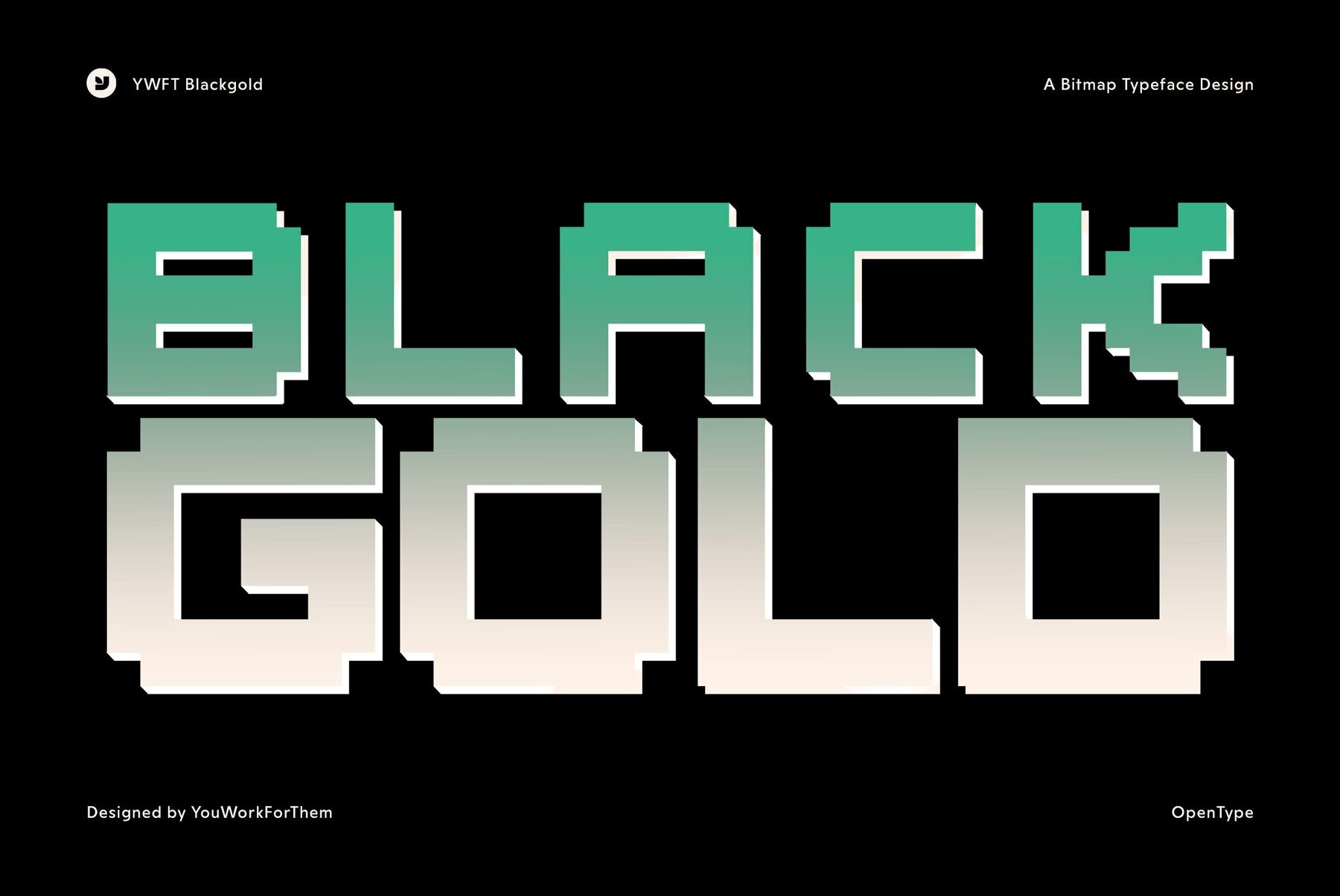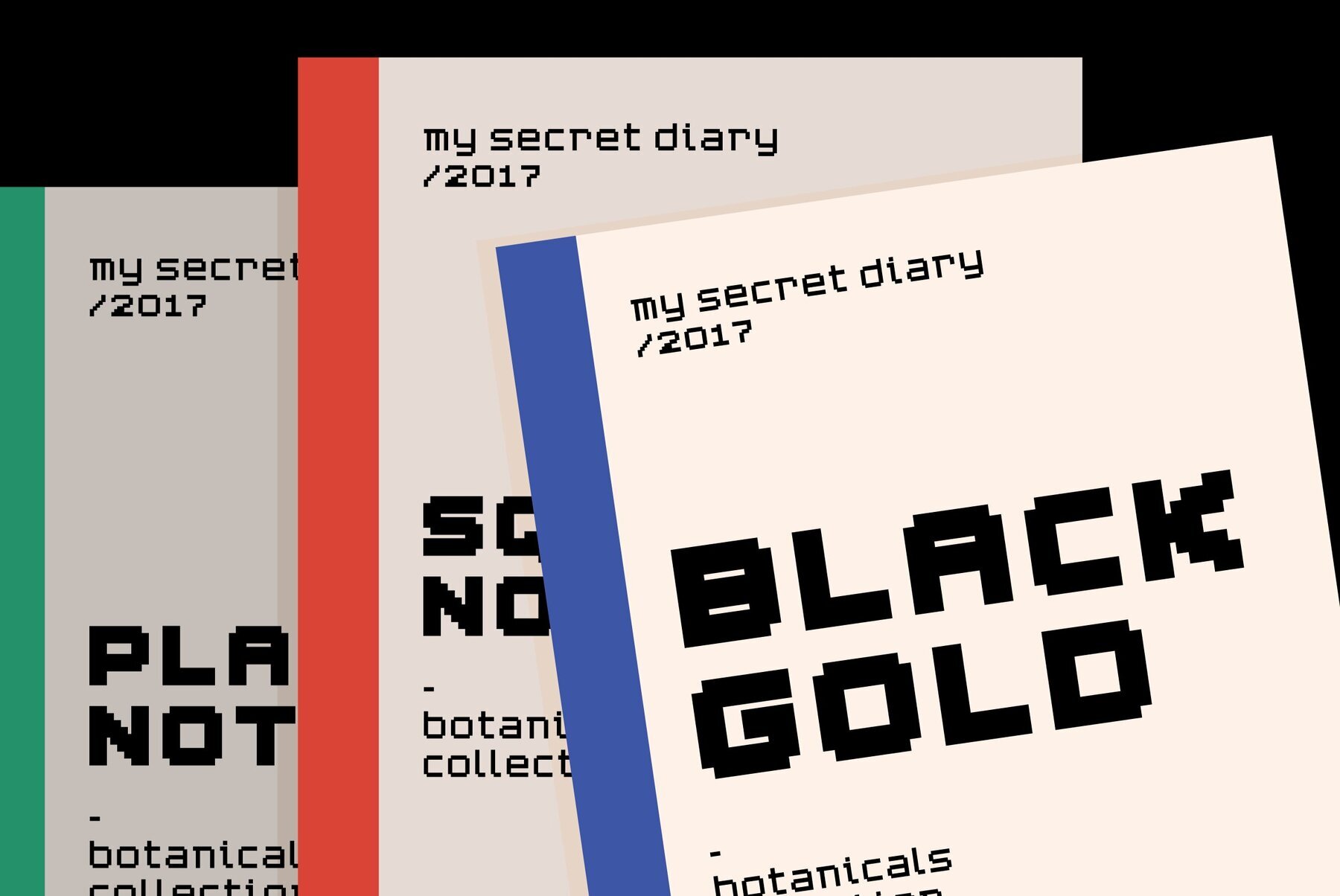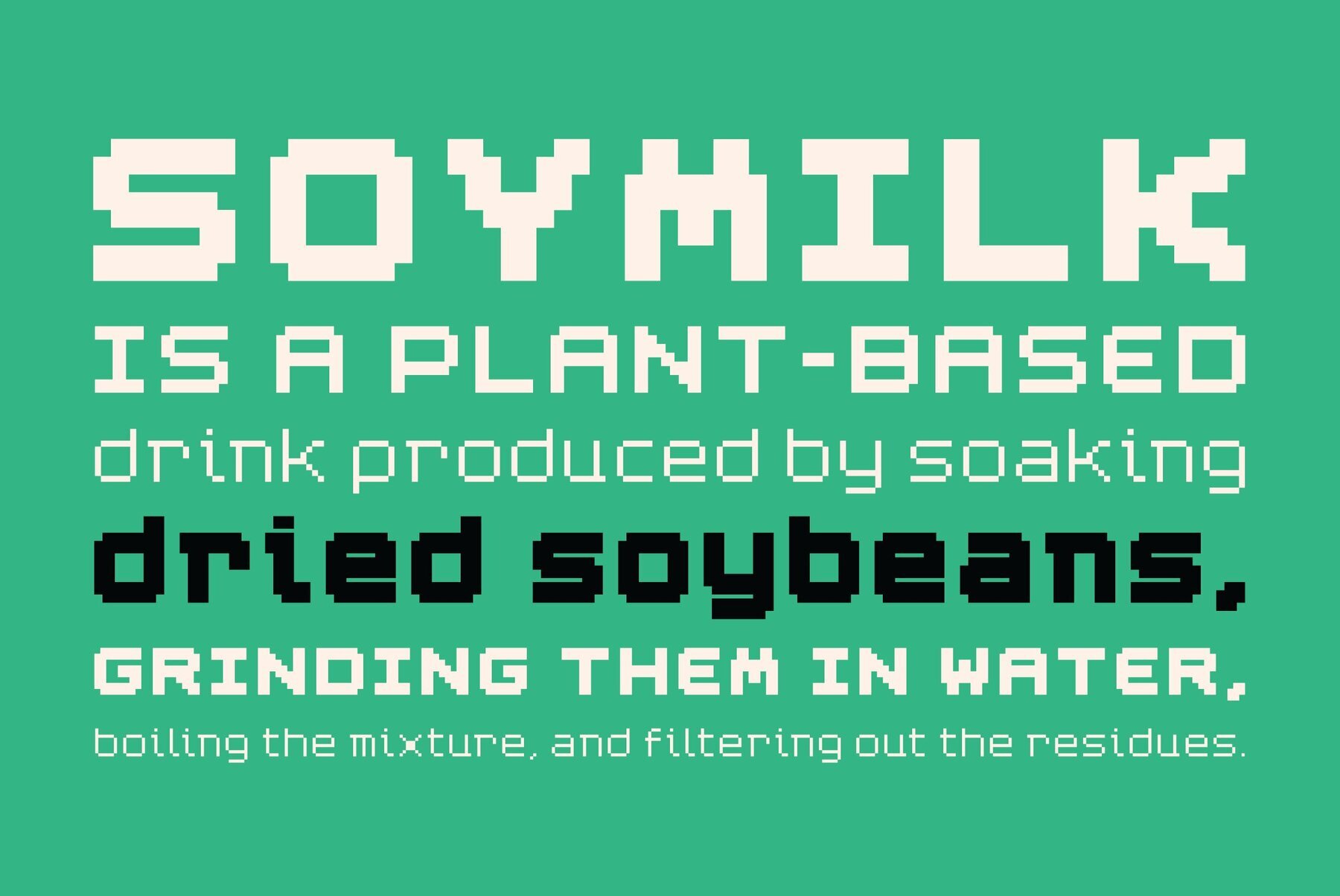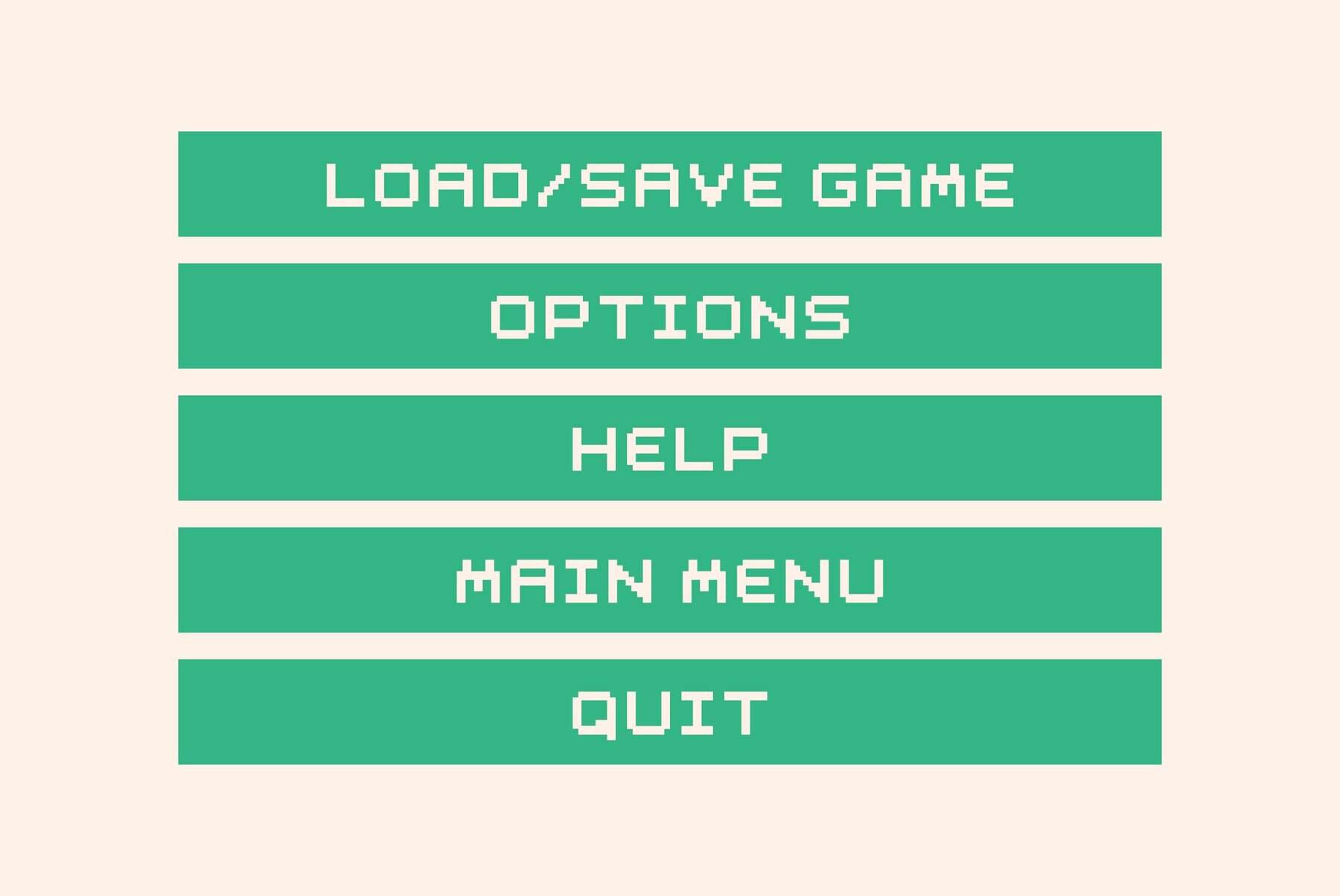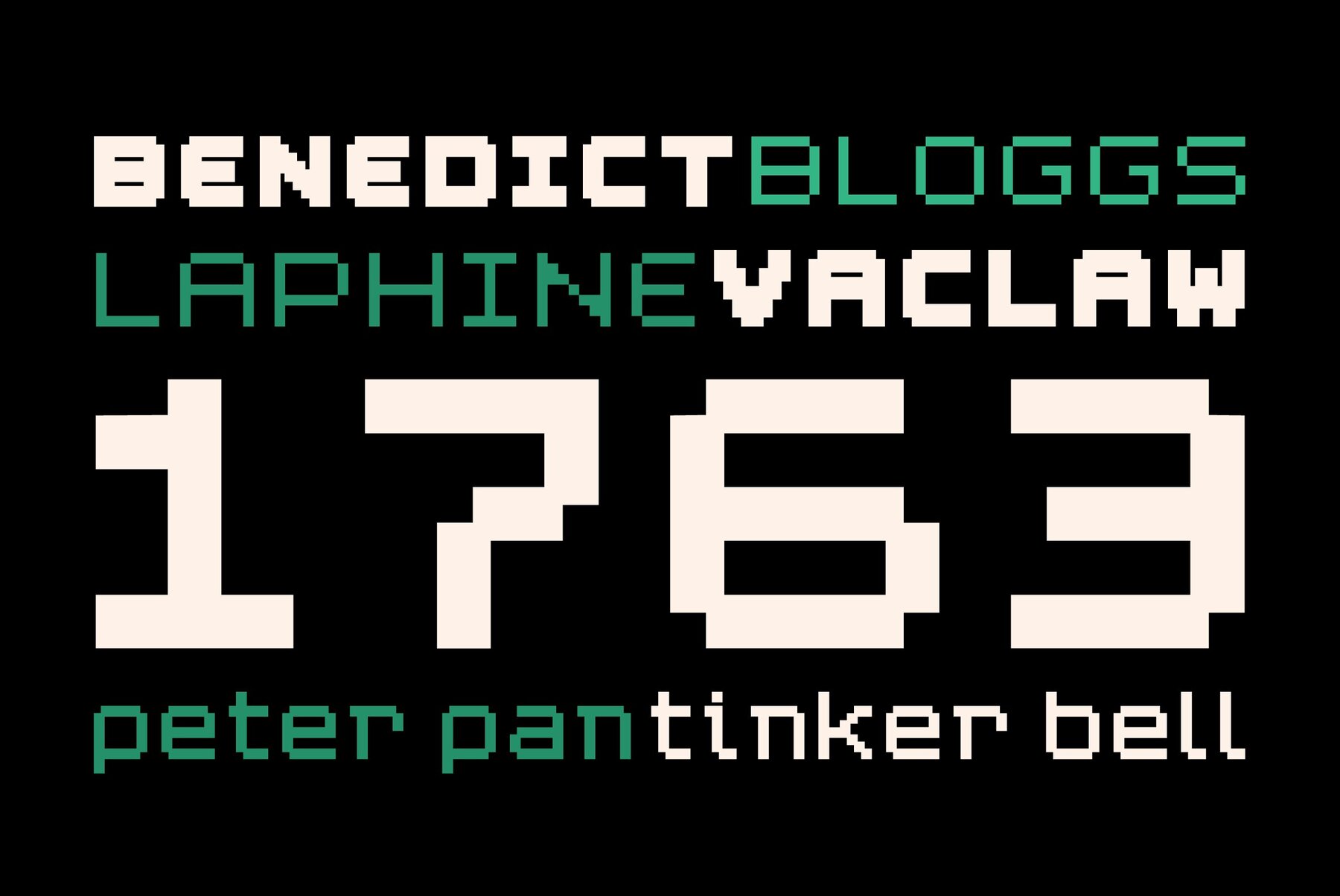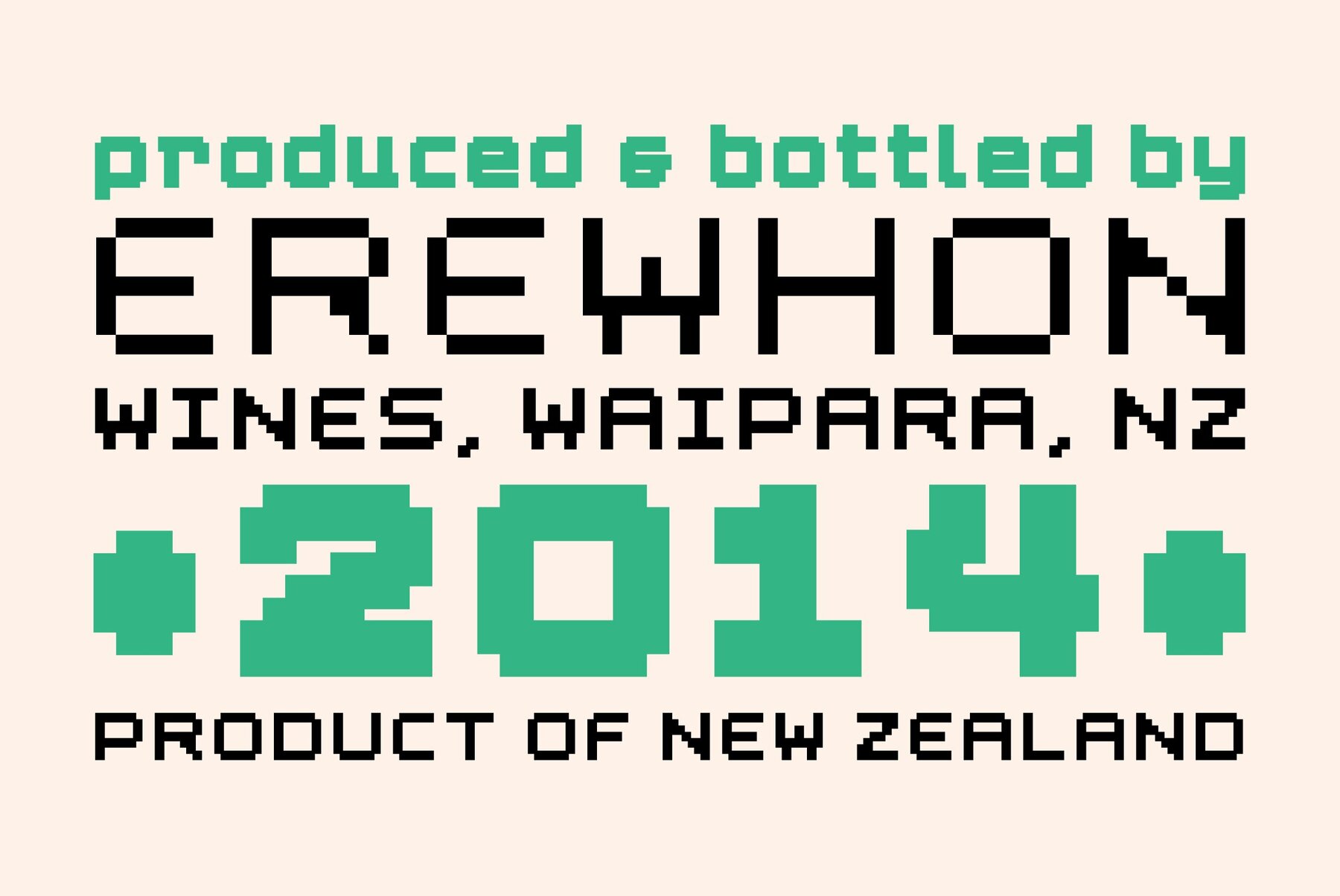
YWFT Blackgold Font
YWFT Blackgold: Pixelated Perfection
YWFT Blackgold brings a bold, playful touch to your digital designs. Initially crafted as an extension to YWFT Caliper, this robust, chunky font is ideal for video game enthusiasts and retro aesthetics. Its pixel-inspired design not only excels in digital projects but also stands out in both body and headline text, making it versatile and impactful.
Key Features
• Thick, chunky pixel style
• Perfect for digital and retro-themed designs
• Suited for both body text and headlines
Whether you're crafting the next hit retro game or looking for that perfect font to make your digital content pop, YWFT Blackgold combines digital nostalgia with modern versatility.